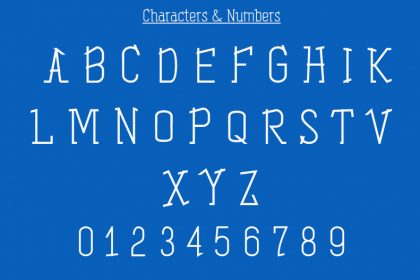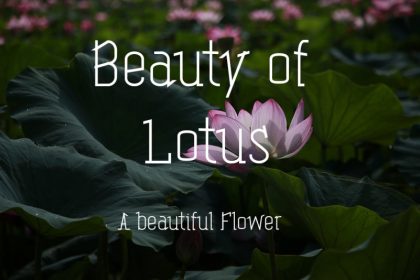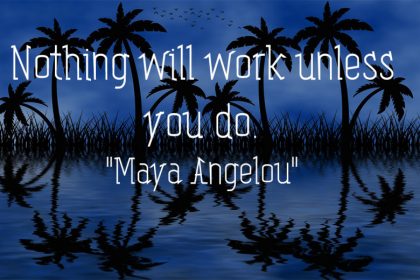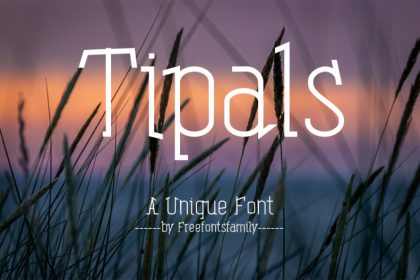
Introducing Tiplas font that’s specially designed to fulfill all designers need. It’s ideal font to design any type of historic, quotations or books cover. You can use this font to make your designs very attractive and unique. It can also be used for branding and can take your graphic design projects to the next level.